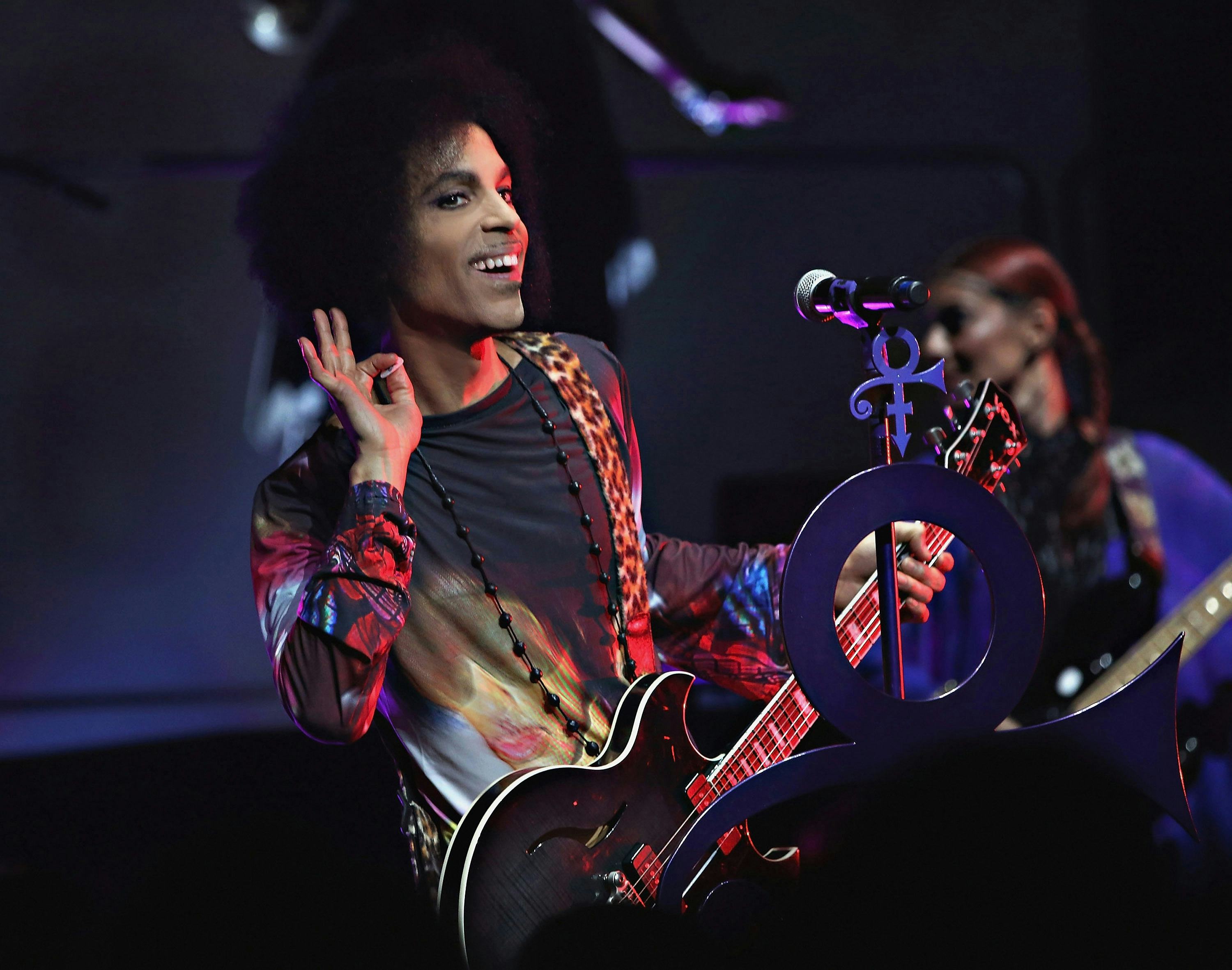
Can You Download Prince's Symbol Font?
Since the news broke that the incomparable musician Prince died on Thursday, aged 57, fans have been memorialising him in their own ways in order to mourn the loss of his genius. If, like me, you have an urgent obsession with the literally unspeakable rebellion of early '90s Prince and his "love symbol" monicker, then you may also be wondering "where can I download Prince's Symbol font?" so that you can celebrate and share his legacy on a digital platform. And that's totally understandable, especially when you find out the complete story behind the Prince Symbol font.
Though it's become an undeniable piece of musical iconography and a supreme emblem of everything he represents, the meaning of Prince's symbol actually goes far deeper than being just an exercise in artistic branding. Chosen for its impracticality and difficulty to reproduce, the symbol was a way for a fed-up Prince to mess with Warner Bros., his record label, who were critical of the speed of his output, as a way to negotiate the contract he had with them.
In 1993, when Prince changed his name to an untypeable and unspeakable symbol, it caused problems beyond his record label. Music journalists everywhere had no way that they could feature him in their publications without having a name. So, Prince came up with the perfect solution, creating his very own custom-designed font which substituted a capital P with Prince's symbol.
The custom font was distributed to publications on a floppy disc and was also made available to download. The accompanying letter is truly a wondrous thing to behold:
It may seem like one of the more mundane ways to remember and celebrate the work of a musical genius, but Prince's symbol is a powerful reminder of everything that he stood for: refuting the laws of record label "ownership," risktaking innovation and the power of love and equality (did you know that "the love symbol" derives from a combination of the male and female symbols?) So cool.